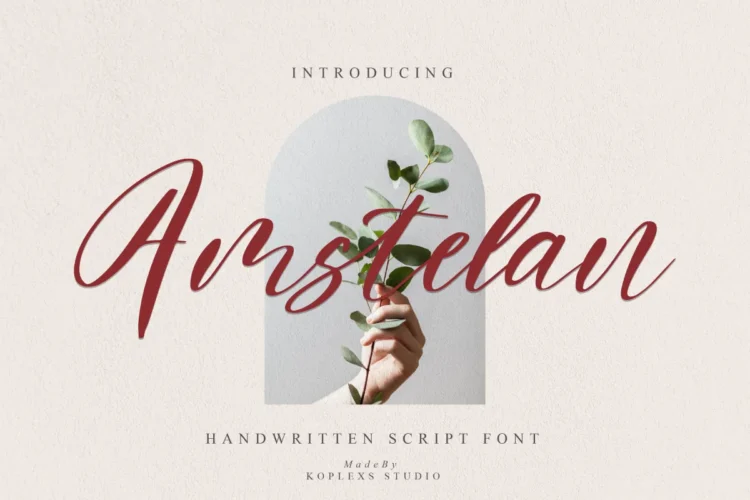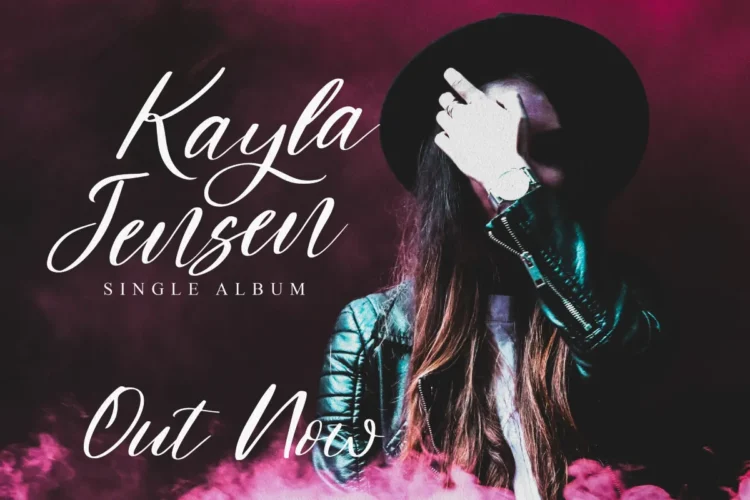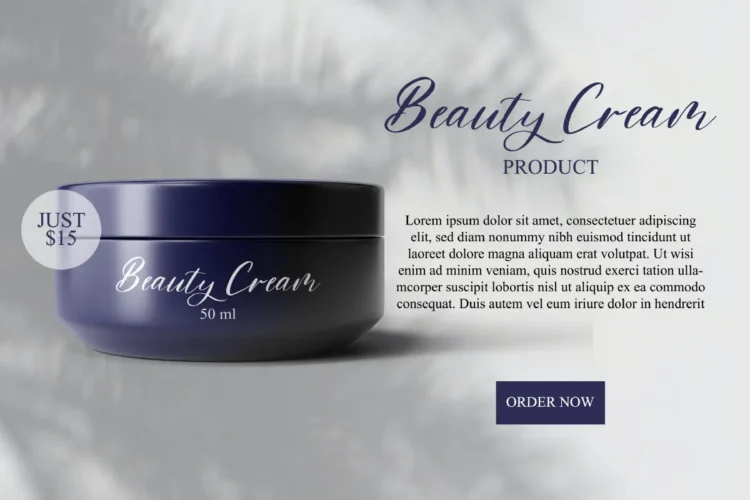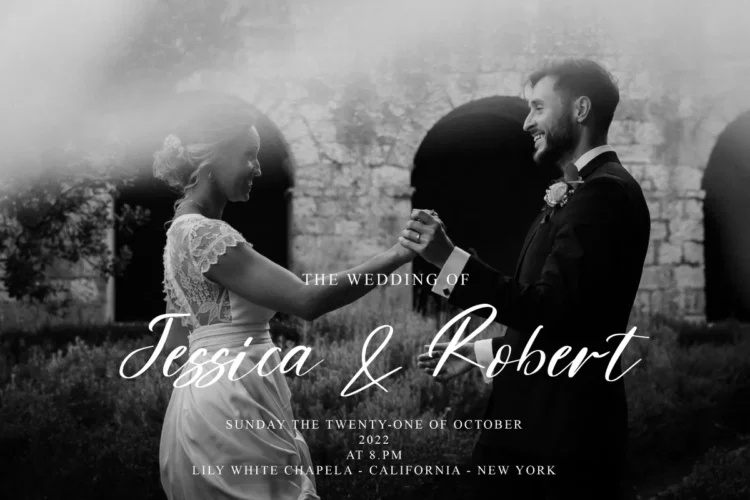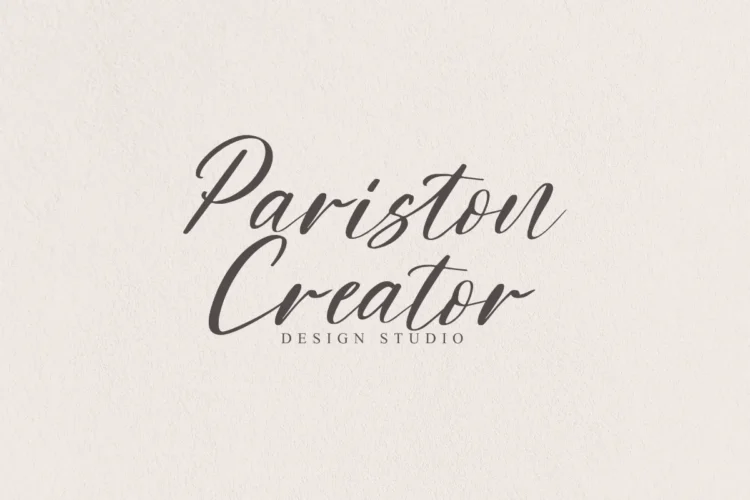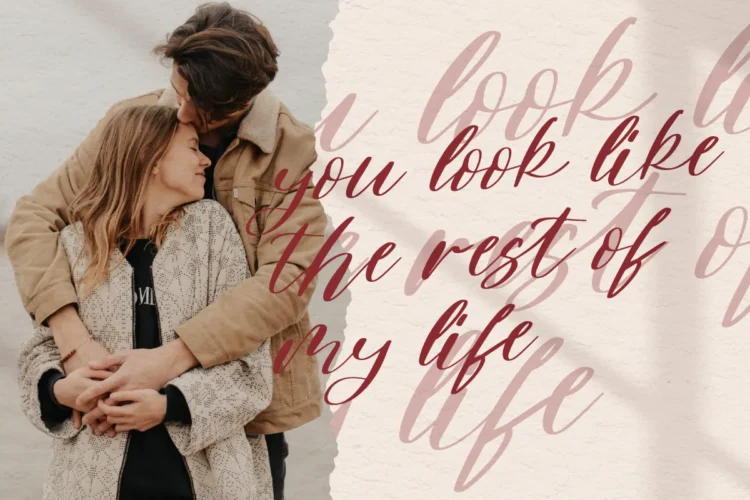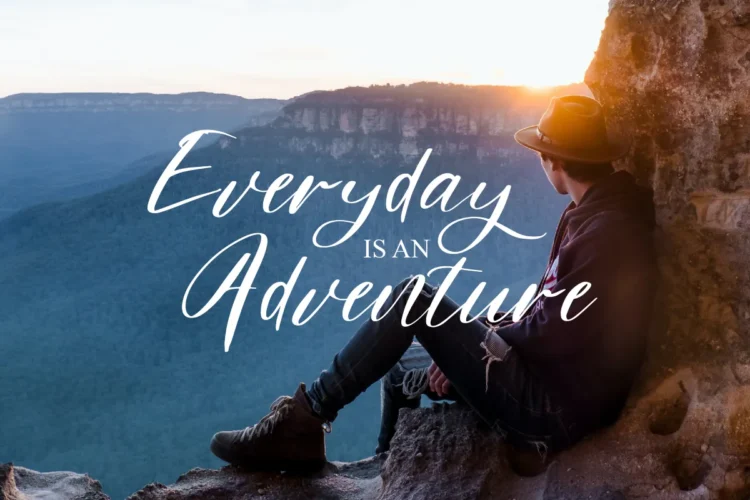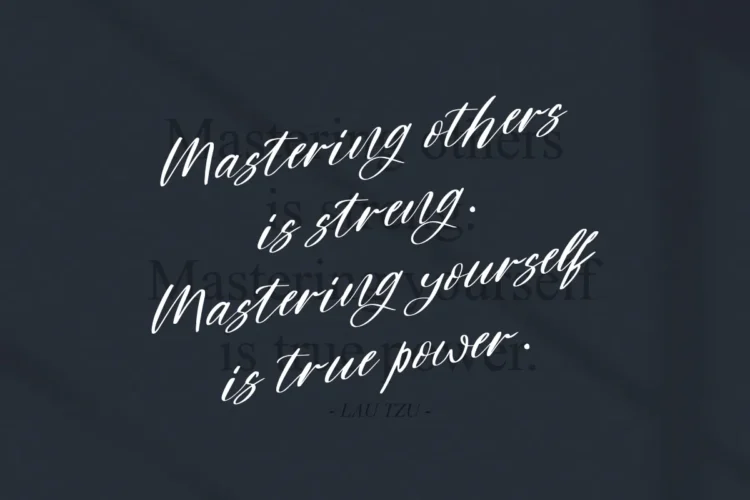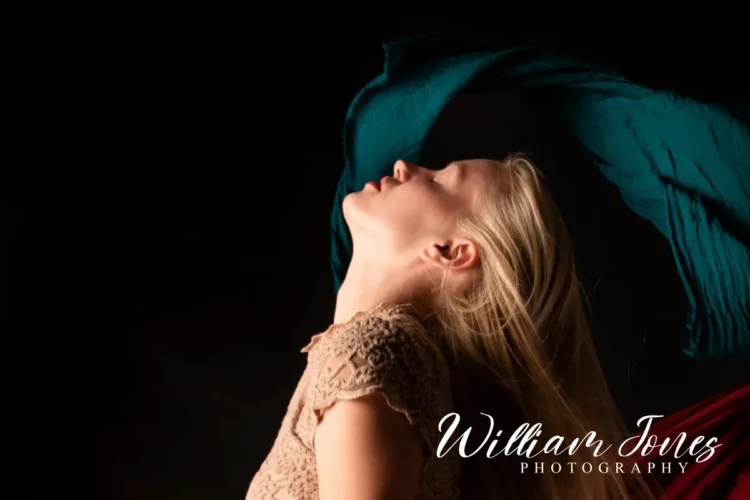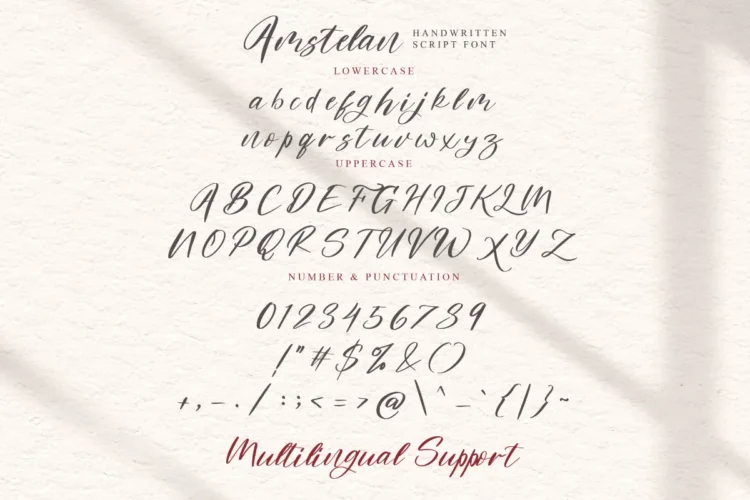
Amstelan Font – Elegant Luxury Script Font Perfect for Logos & Invitations
Amstelan Font is a modern handwriting font and script font that combines luxury with effortless charm. Designed with fluid strokes and graceful curves, it stands out as one of the coolest fonts for branding, packaging, and digital design. Its balance between elegant font and contemporary vibes makes it versatile for various creative needs.
Whether you are designing a wedding font invitation, creating a high-end cosmetic font for beauty products, or elevating your branding with a premium logo font, Amstelan delivers timeless sophistication. It belongs among the most aesthetic fonts and style fonts that modern creators seek today.
✨ Key Features:
Beautiful handwritten script with natural flow.
Works as a luxury font for upscale branding.
Smooth readability in both print and digital media.
Versatile as a cool font for modern trends.
🎯 Perfect For:
Wedding invitations & stationery.
Cosmetics & beauty branding.
Logos & luxury branding.
Social media graphics & lifestyle designs.
Music covers, magazines, and fashion projects.
Bring your designs to life with Amstelan Font — a true fusion of class, style, and modern creativity.